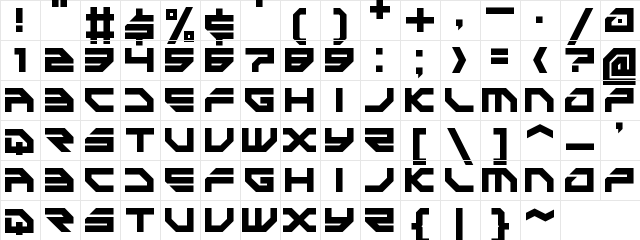
Game Battles Regular
| Designer | Jγon Garnica |
Design Context for Game Battles Typeface
Game Battles is a composed and adaptable typeface that performs quietly and consistently across a wide range of design contexts.